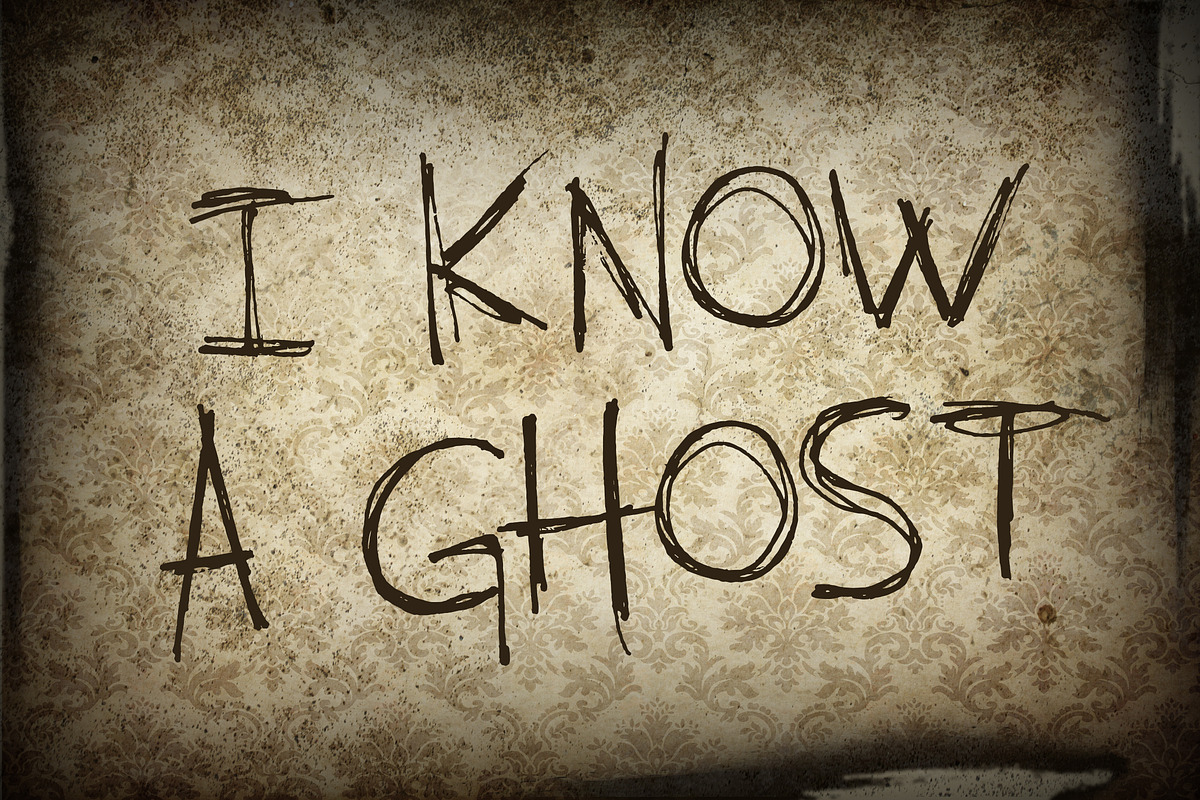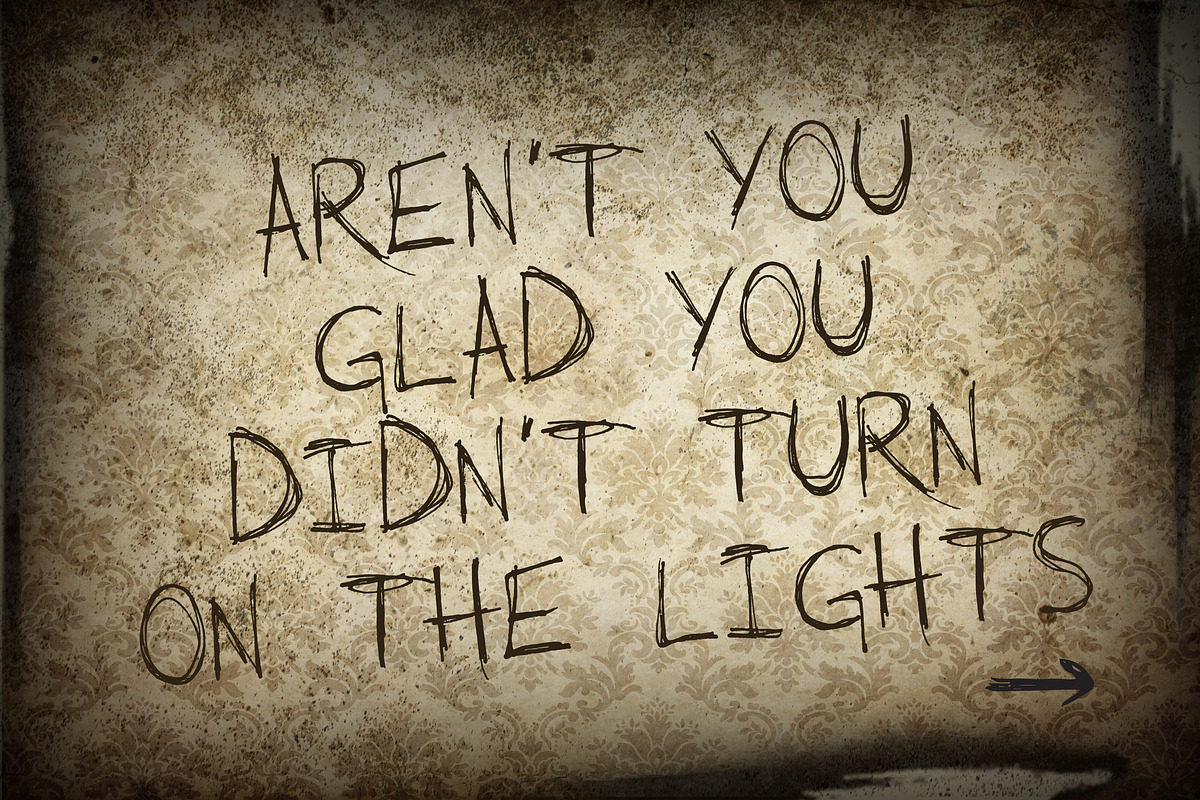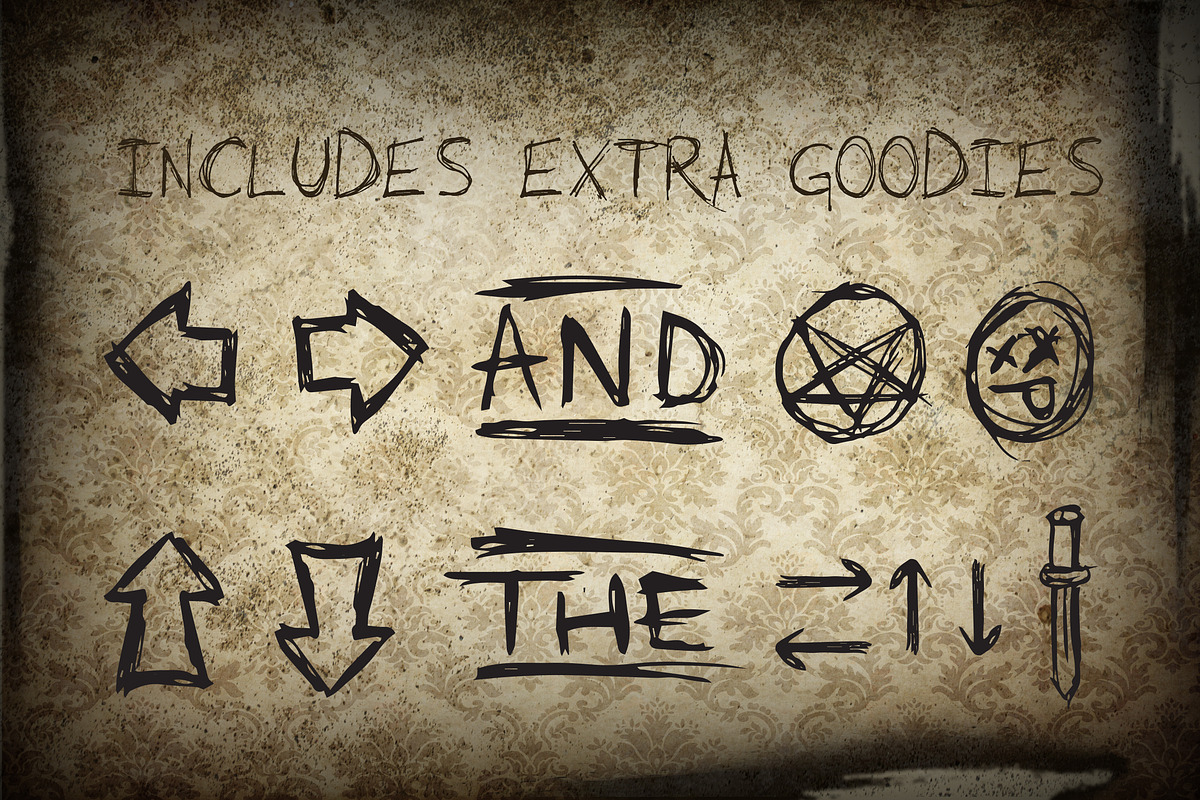
I KNOW A GHOST
A frantically handwritten typeface. Written loosely and unbalanced. Named appropriately for it's agitated and distressed characteristics. This typeface includes 13 goodies for your enjoyment, displayed in the third image above.
Inspiration: The Devil Wears Prada.